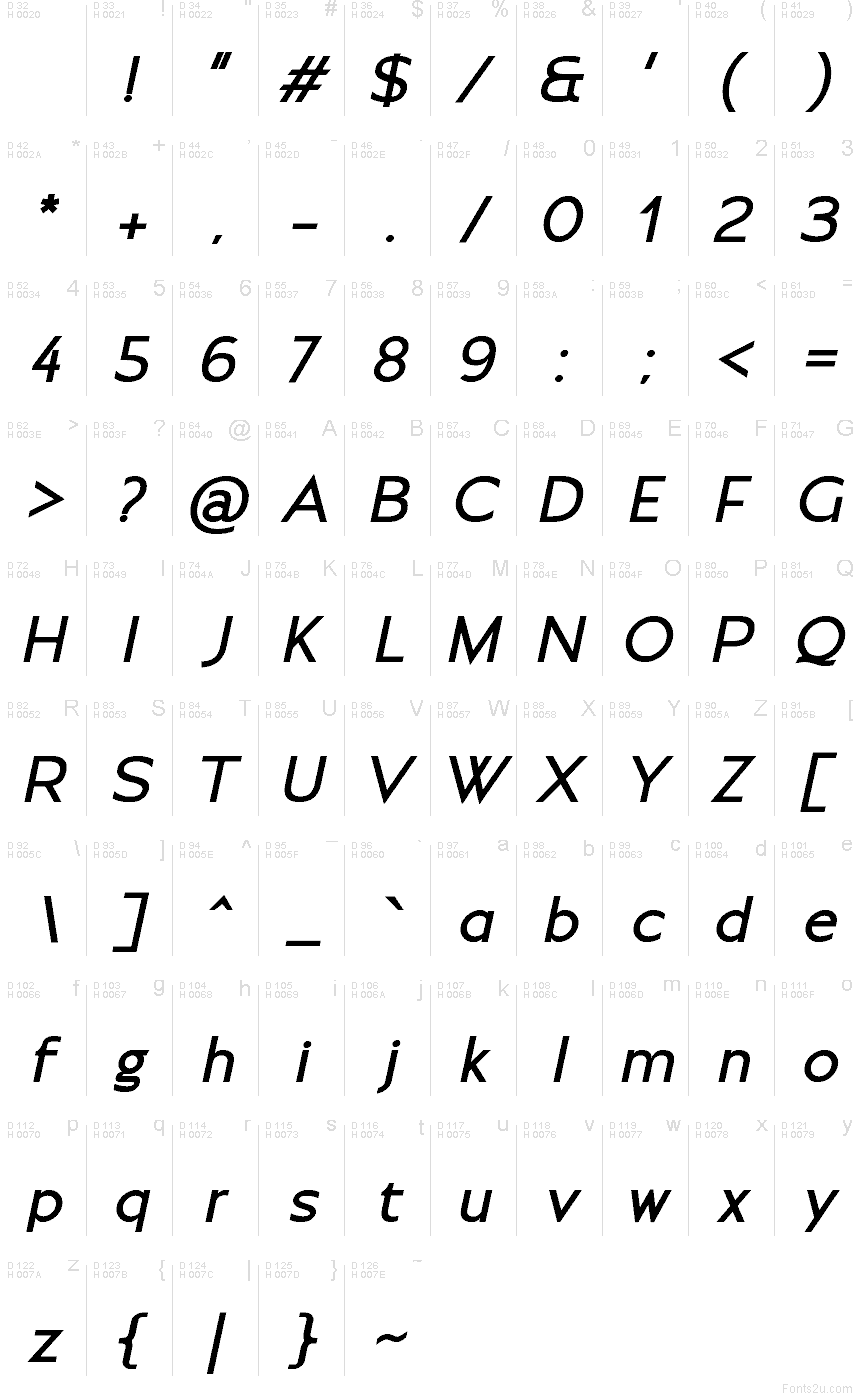
Moirest Bold Italic font by Muhamad Fikry Nuralif of Fikryal Studio is a free sans serif typeface with a built‑in sense of motion. Its confident slant, tight rhythm, and smooth, rounded curves make every word feel like it’s surging forward, while the clean Moirest family geometry keeps it sharp and readable. The letters feel dense and inky, giving headlines a punchy, energetic presence on screen or in print.
Using Moirest Bold Italic, your work instantly picks up speed-great for sports branding, tech or startup logos, magazine covers, bold posters, social media campaigns, and event titles. This free font shines when you want urgency without chaos, pushing key phrases to the front of the layout. Pair Moirest Bold Italic with a lighter, upright weight from the Moirest family for supporting text to keep the hierarchy clear and polished.